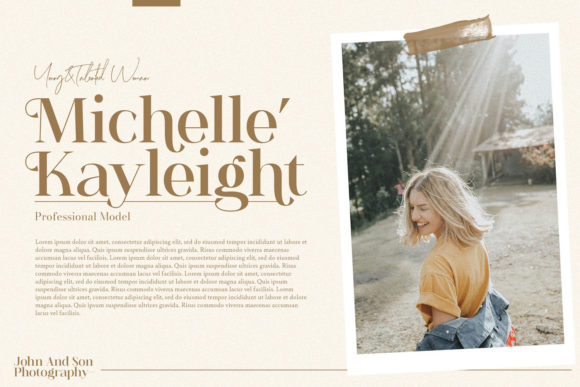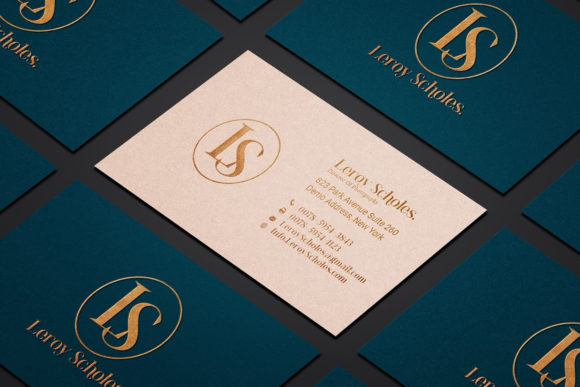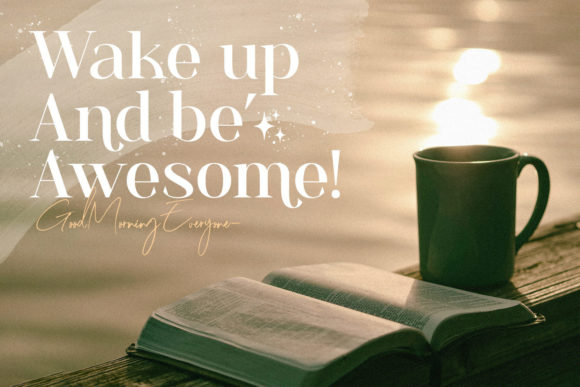
The Elusive Perfect Font: My Encounter with Anya Tamy
I’ll never forget the frustration of scrolling through font libraries, searching for that one perfect typeface for a client’s wedding invitation. The project required something bold, elegant, and sophisticated. I had a vision, but the fonts I found were either too ornate or too bland. That’s when I stumbled upon Anya Tamy, a bold and elegant serif font that quickly became my go-to choice.
First Impressions: A Review of Anya Tamy
• ✨ Versatility: Anya Tamy can be used for various purposes, such as logos, wedding invitations, headings, t-shirts, letterhead, signage, labels, news, posters, badges, and more.
• ✅ Elegant and Bold: The font’s serif design exudes sophistication and luxury, making it perfect for high-end projects.
• 💡 Unique Character: Anya Tamy has a distinct personality that sets it apart from other serif fonts.
While Anya Tamy is an excellent font, it’s not without its quirks. For instance:
• ⚠️ Limited Use in Body Text: Due to its bold nature, Anya Tamy might not be the best choice for lengthy body text. It’s better suited for headings, titles, and short paragraphs.
• 🤔 Glyph Compatibility: Some glyphs or special characters might not work seamlessly with all software or platforms. Always test the font before finalizing your design.
The Story Behind Anya Tamy
Anya Tamy was designed with elegance and sophistication in mind. The font’s creator aimed to craft a typeface that would be both bold and refined, suitable for a wide range of applications. The result is a font that exudes luxury and poise.
Q: What is Anya Tamy’s primary use?
A: Anya Tamy is a versatile font suitable for various purposes, including logos, headings, titles, and short paragraphs.
Q: Is Anya Tamy suitable for body text?
A: While Anya Tamy can be used for body text, its bold nature makes it more suitable for headings and titles.